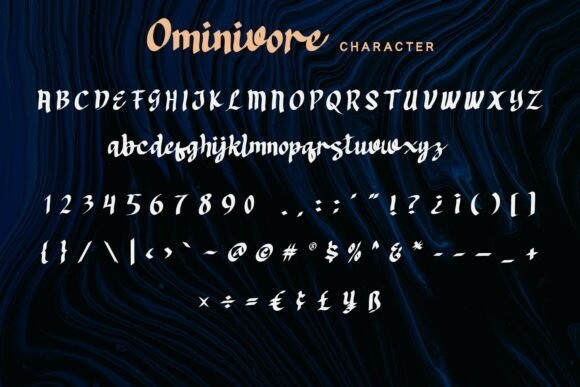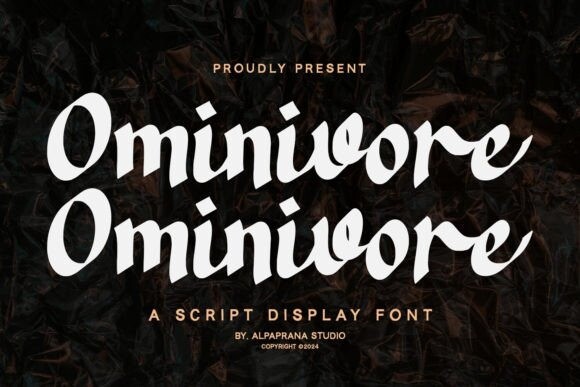
Omnivore Font
Omnivore Font is a display font with unique and modern feels. It will be perfectly used for magazines, packaging, posters, shopping bags, t-shirts, book covers, photography, special events and other design projects.